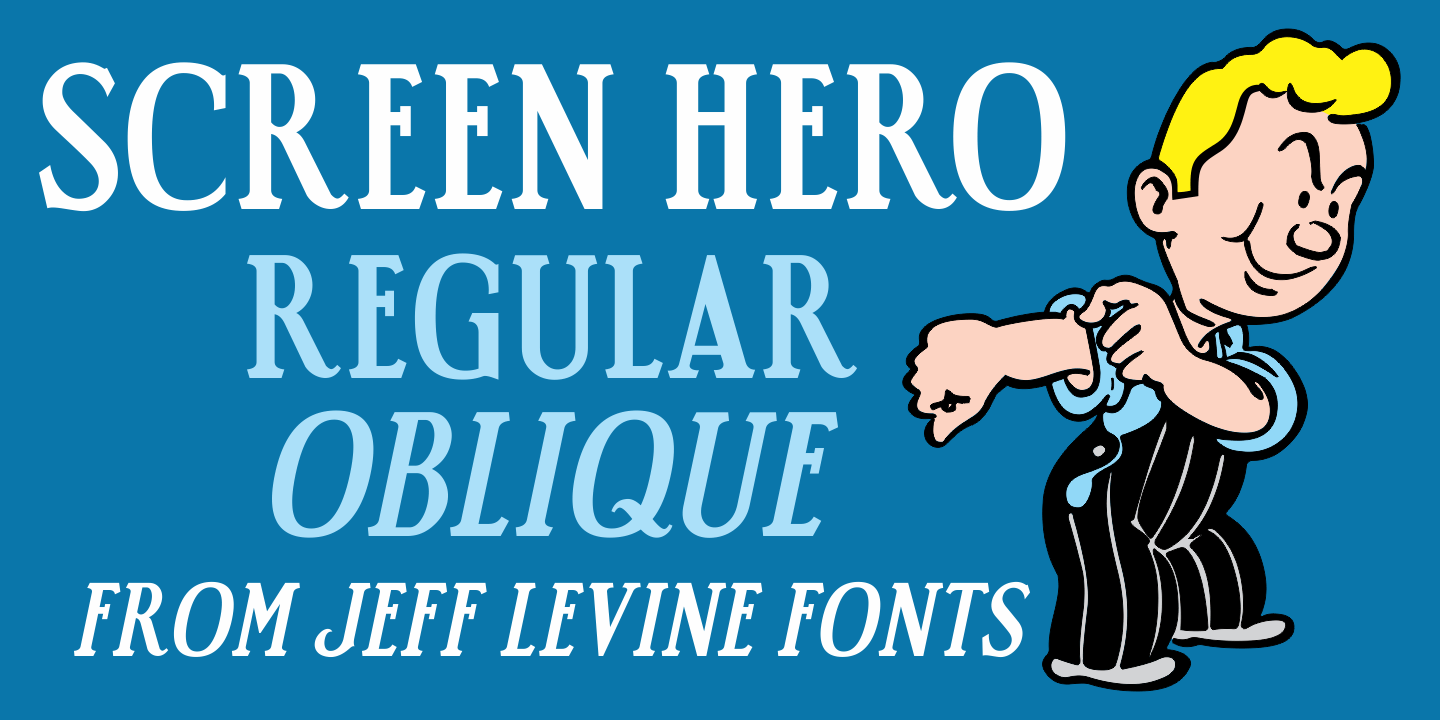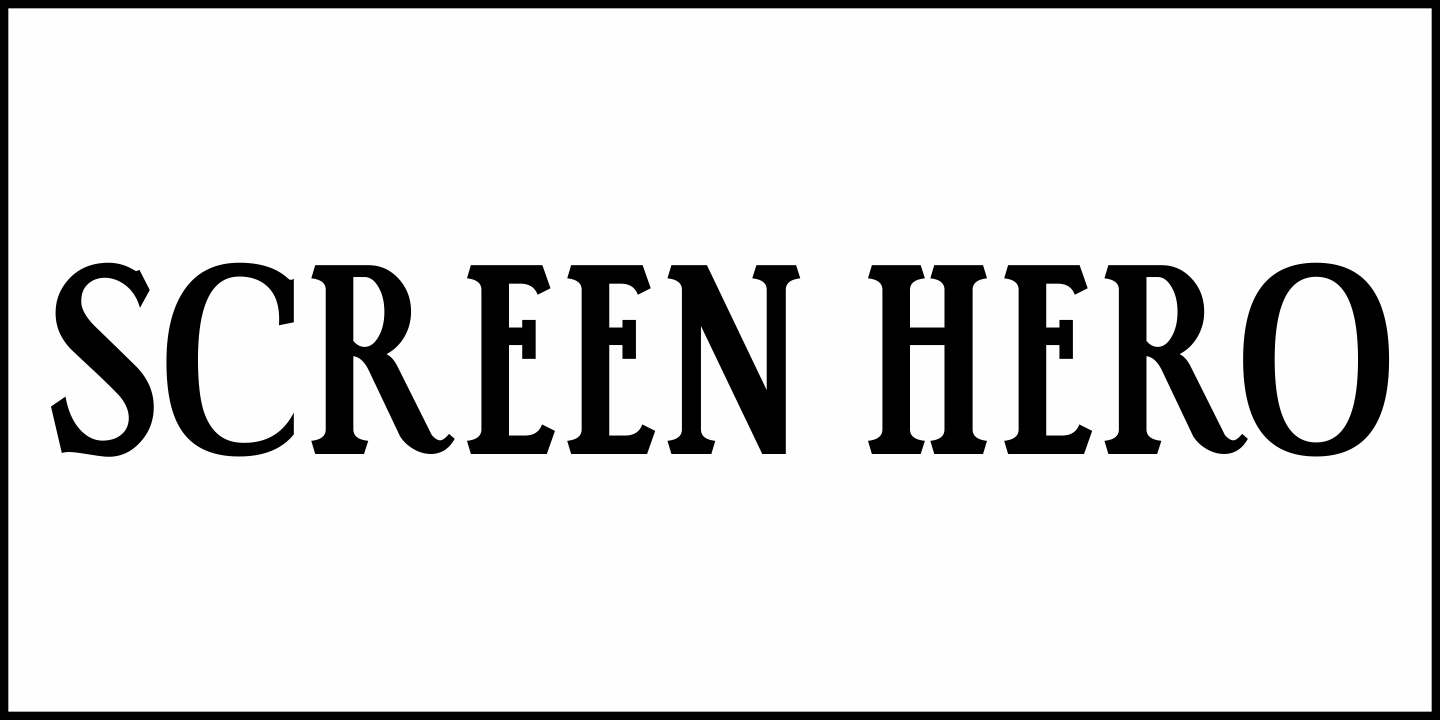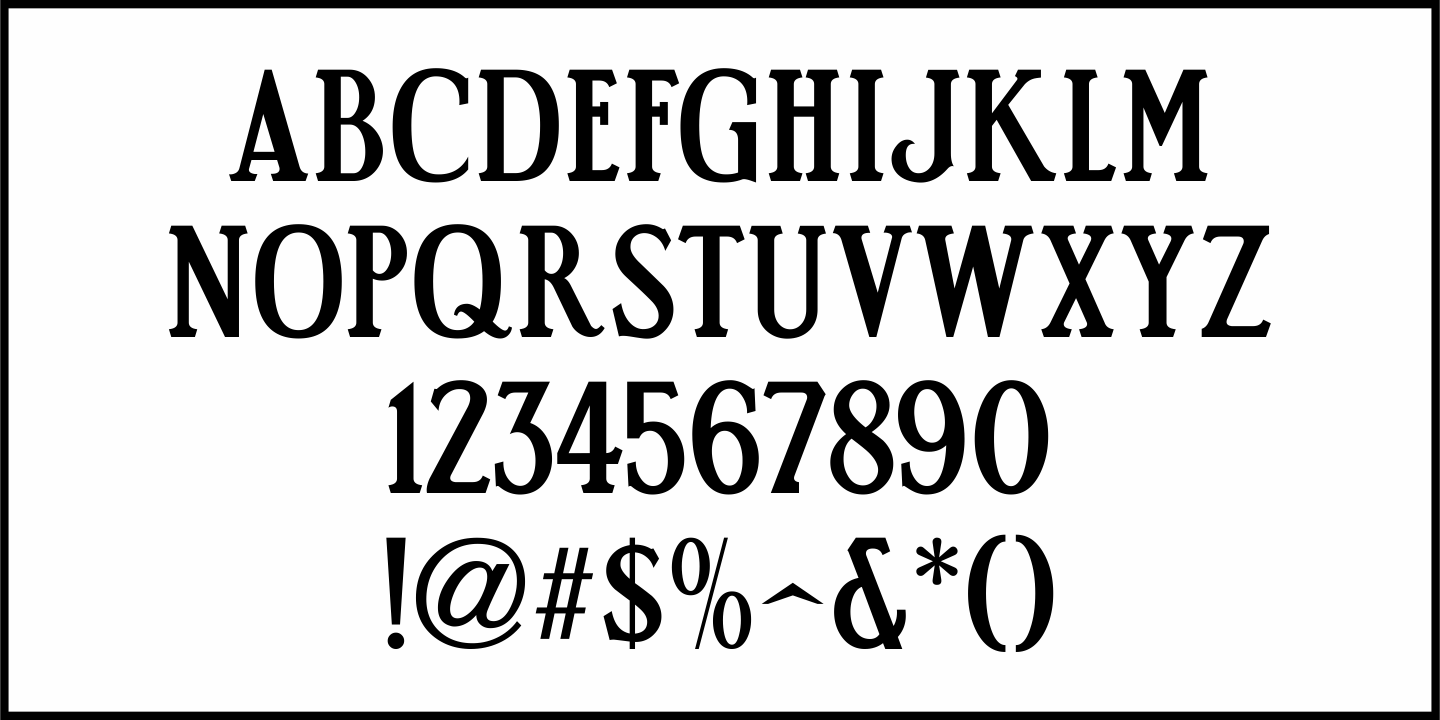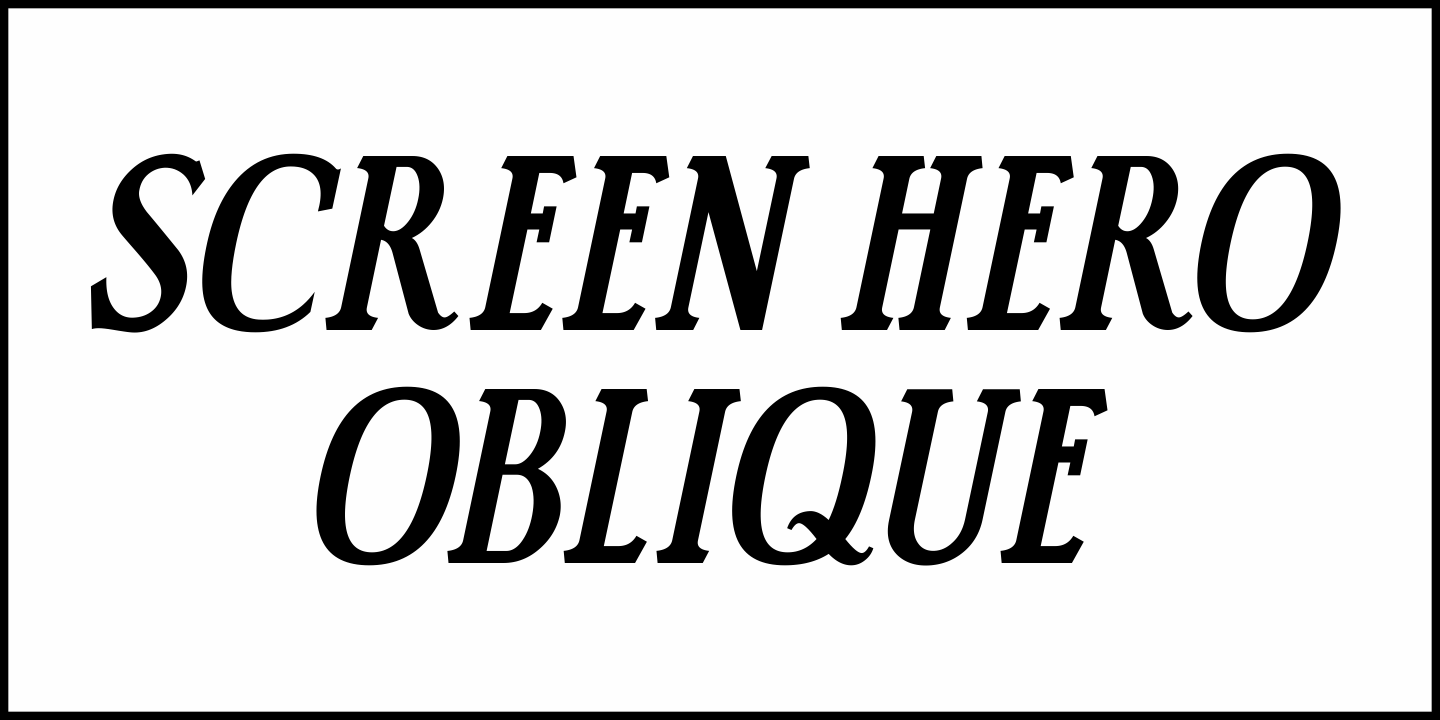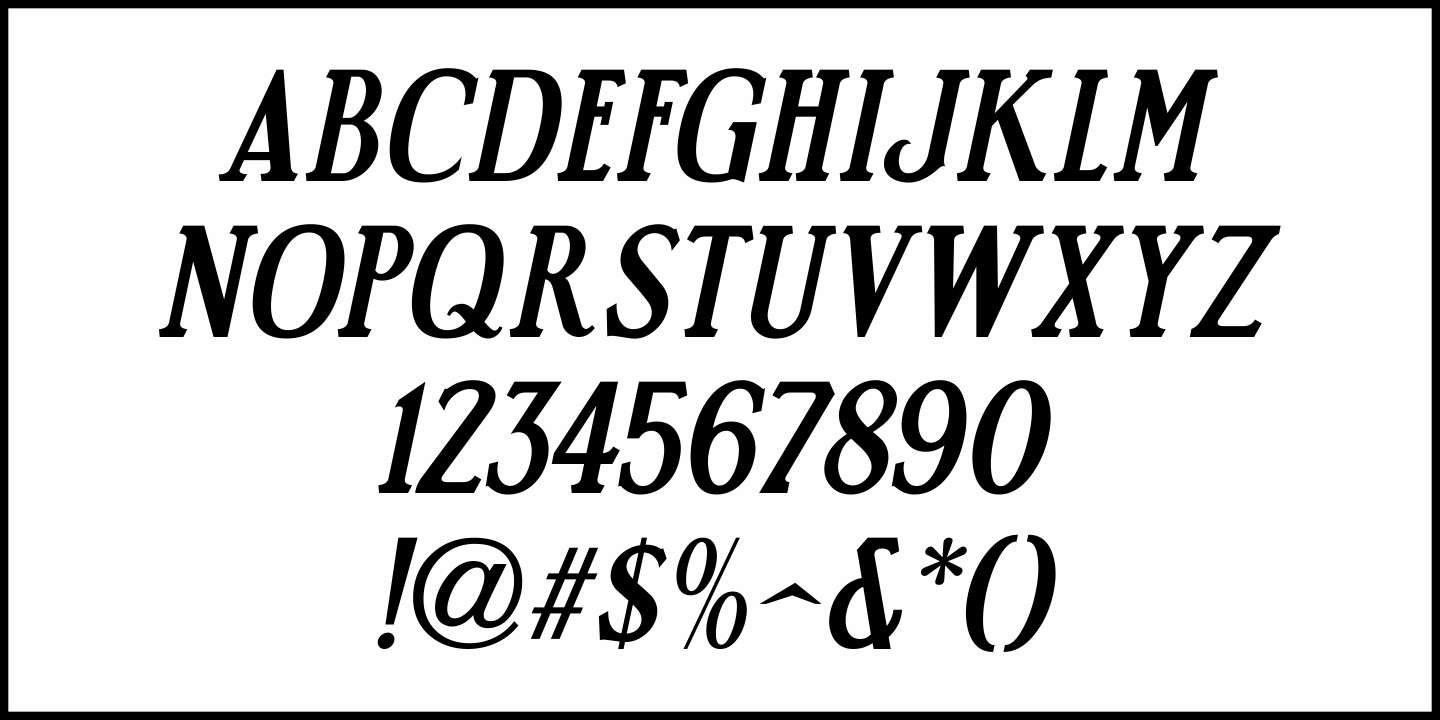
Screen Hero
The September 5, 1925 issue of Moving Picture World contained an ad for the Buck Jones Western adventure "The Timber Wolf". The text copy promoting this now lost film was hand lettered in an Art Nouveau slab serif style.
This is now available as Screen Hero JNL in both regular and oblique versions.